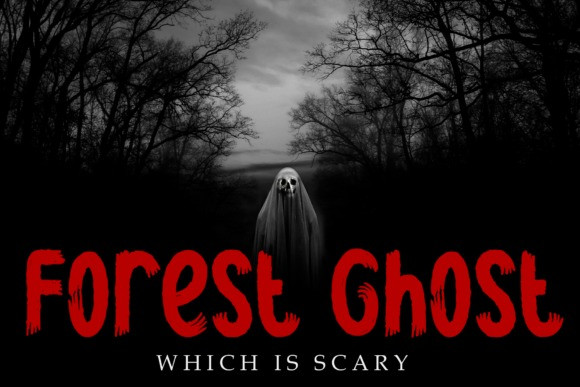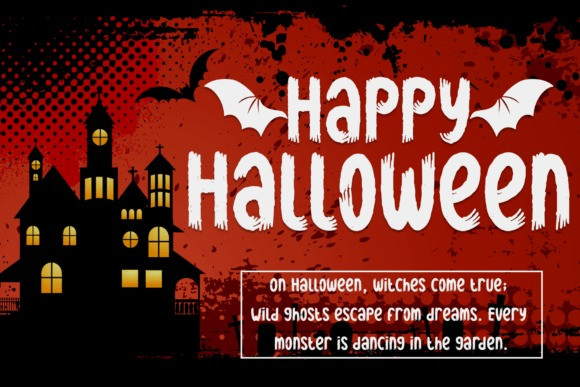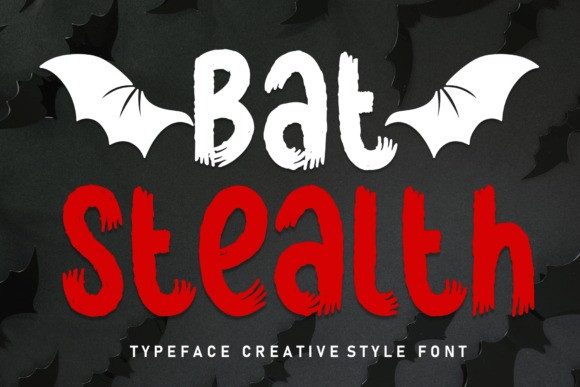
Bat Stealth Font
Bat Stealth Font, a spellbinding script font that embodies the essence of Halloween. With its eerie curves and haunting strokes, this font conjures a sense of mystery and darkness. Perfect for spooky designs, invitations, and haunted-themed projects, Bat Stealth Font brings the spirit of Halloween to life.